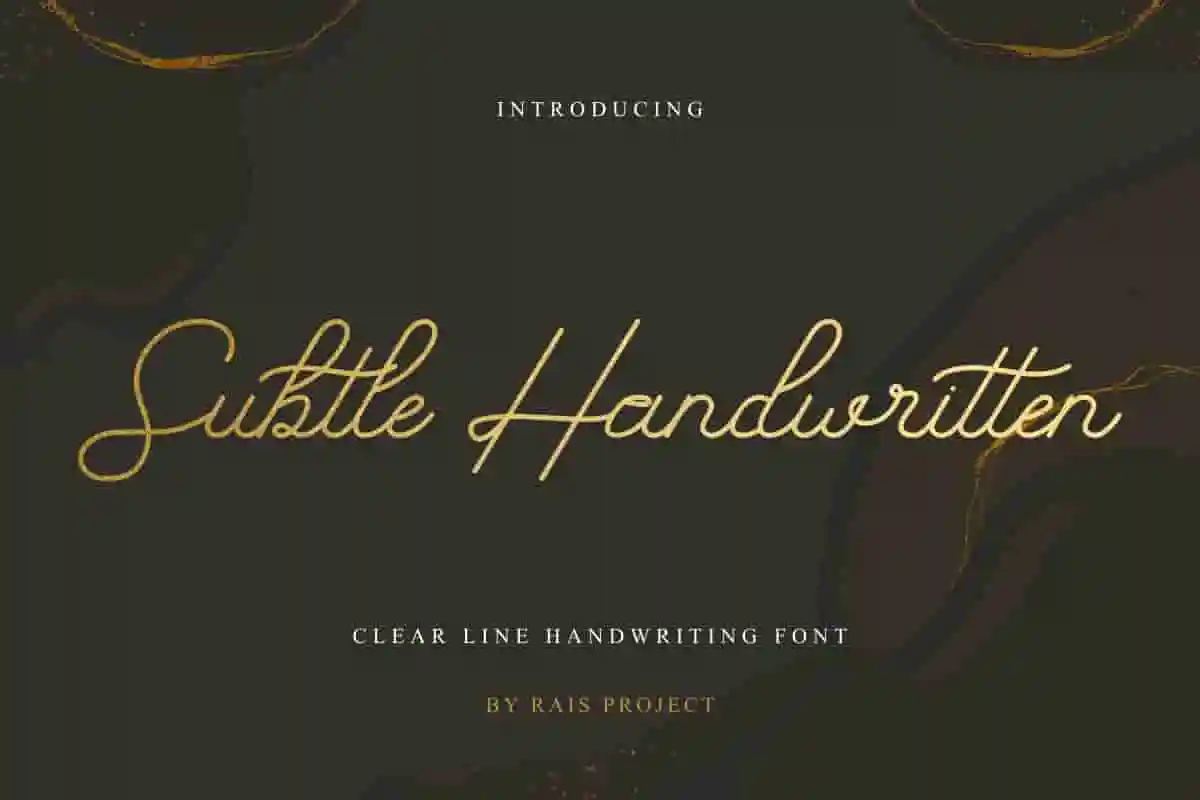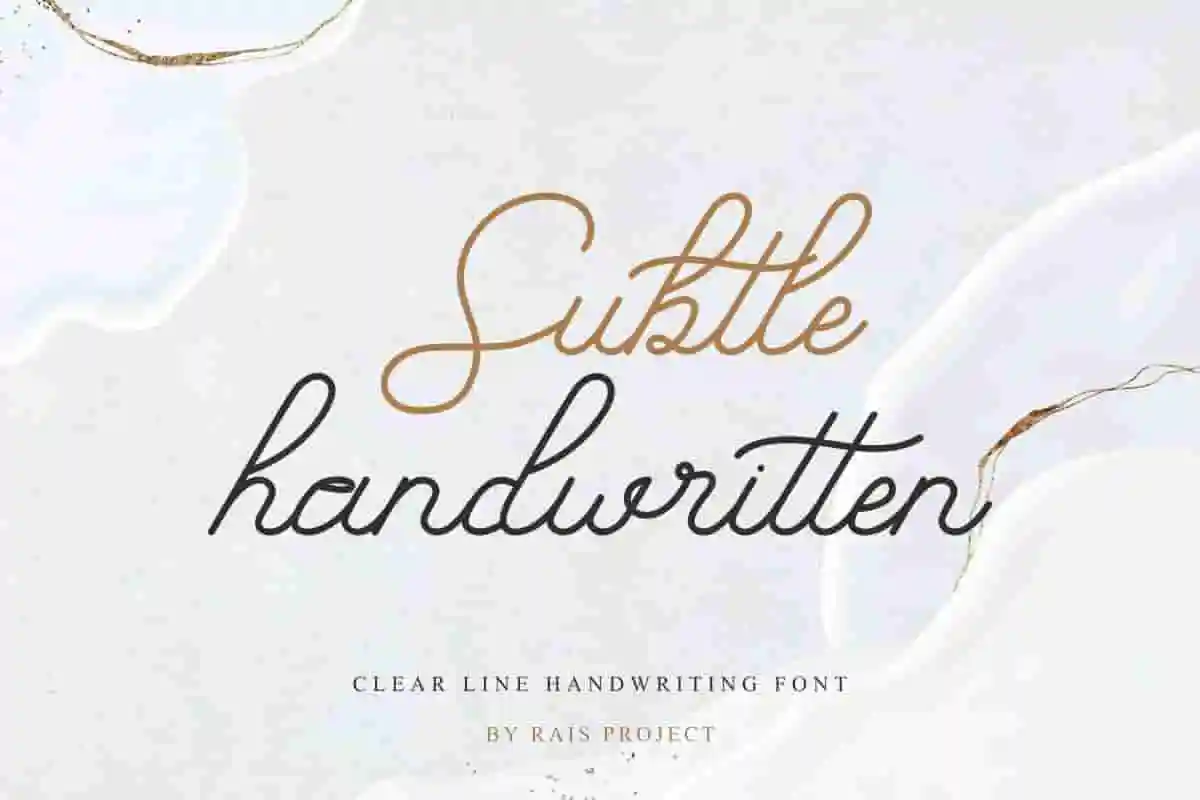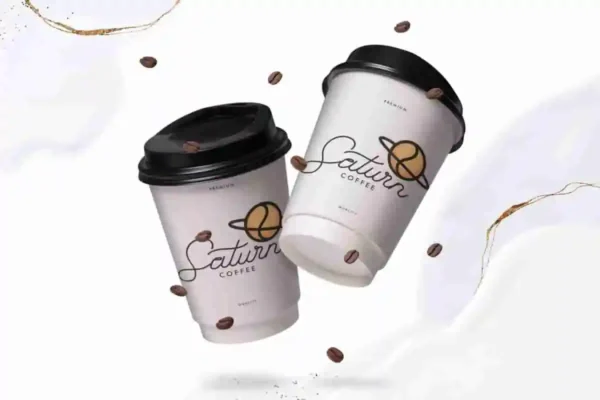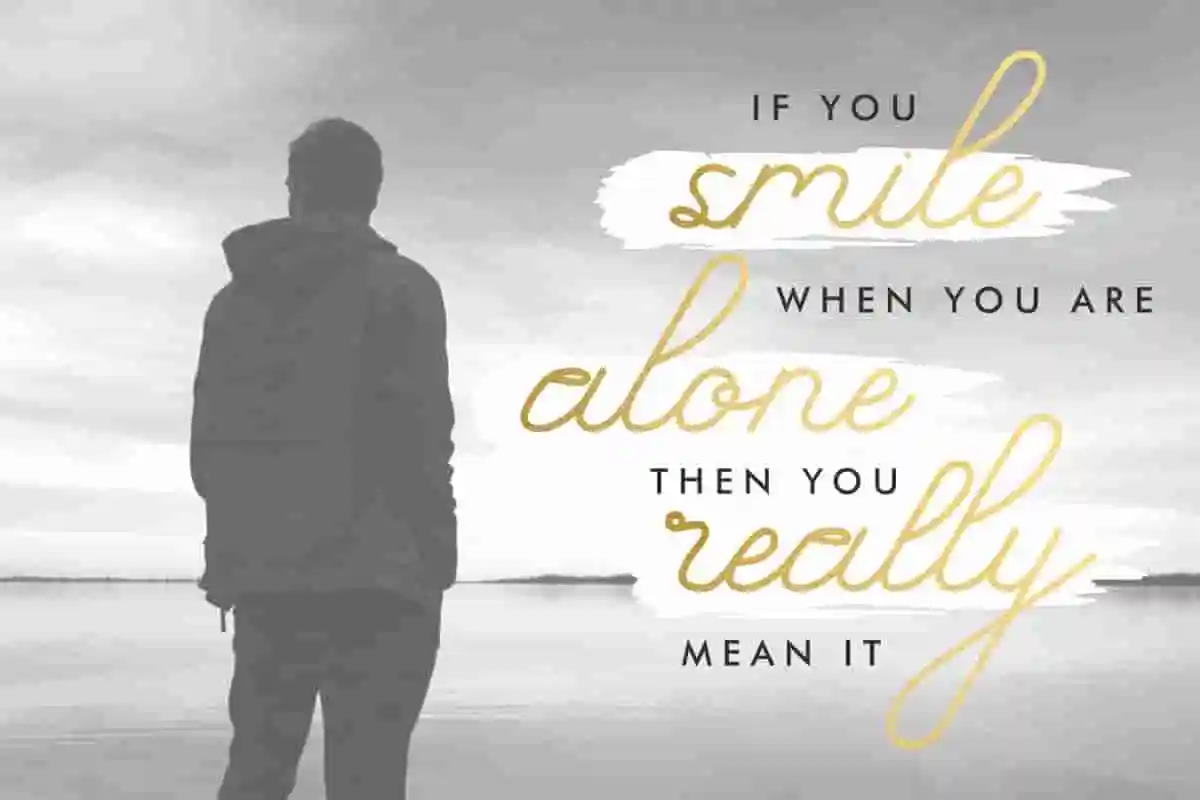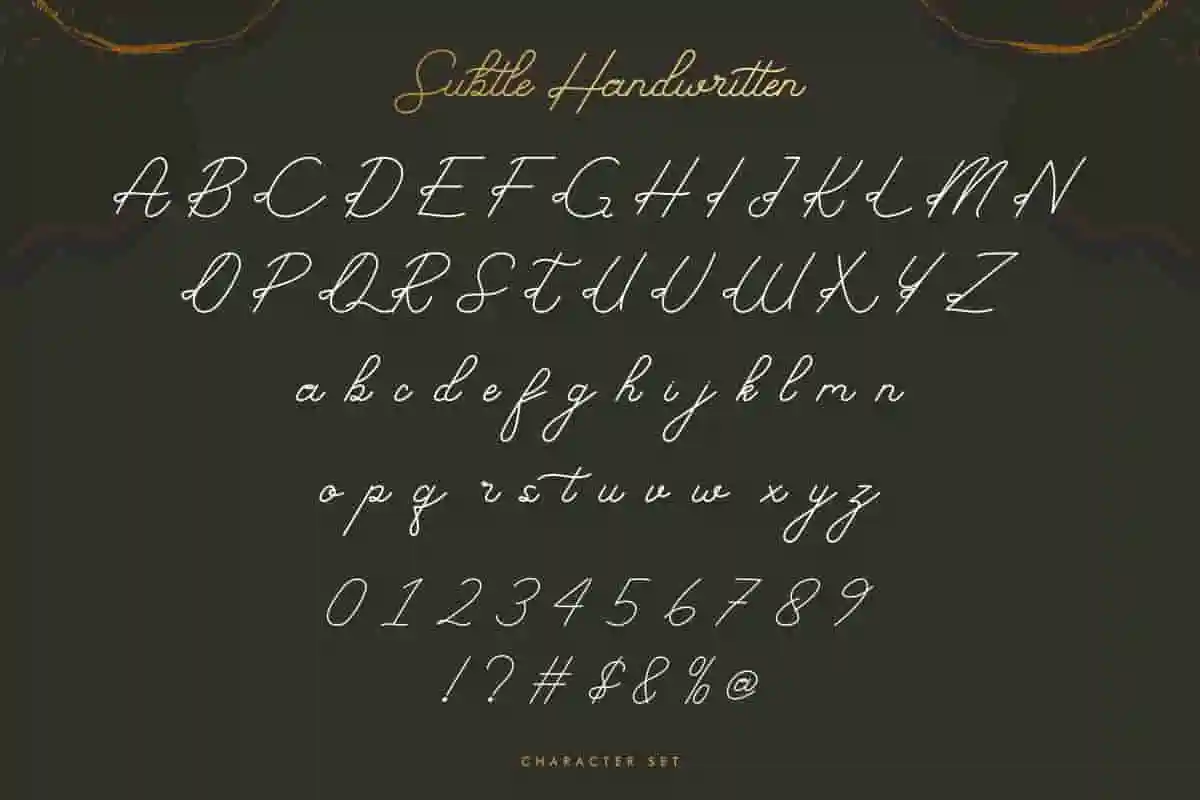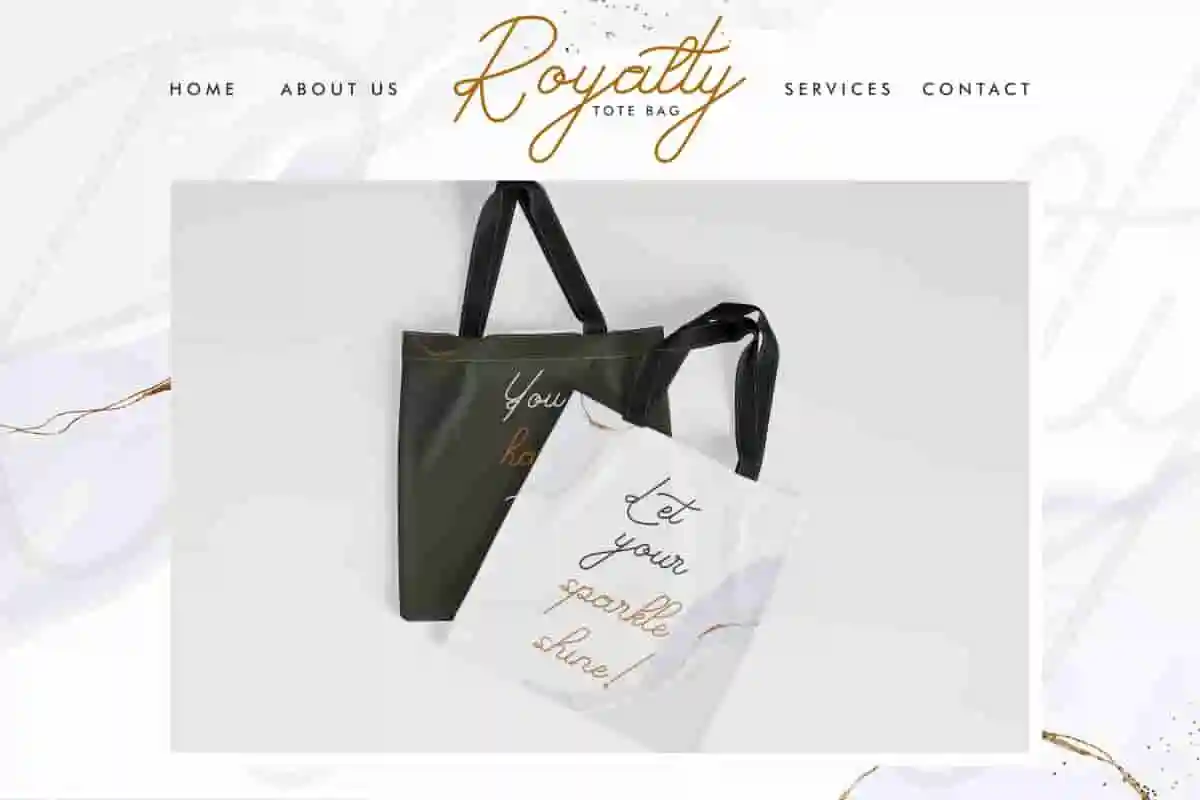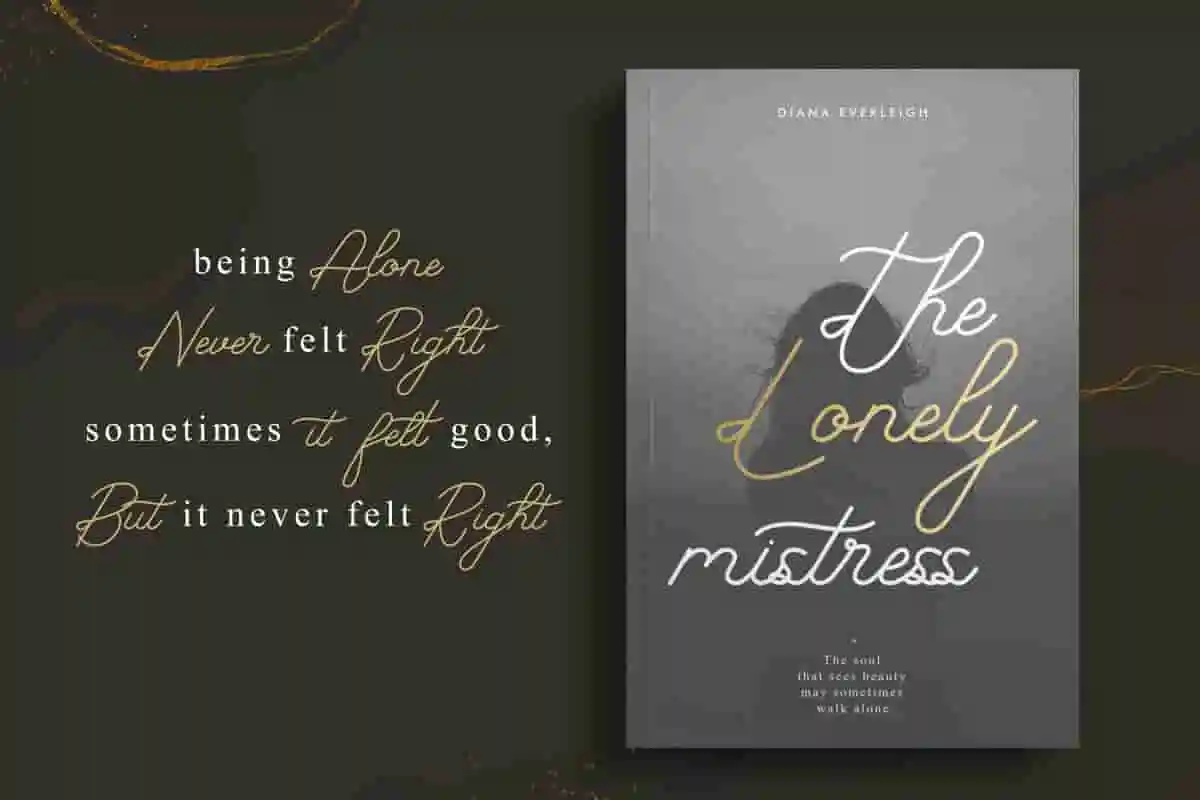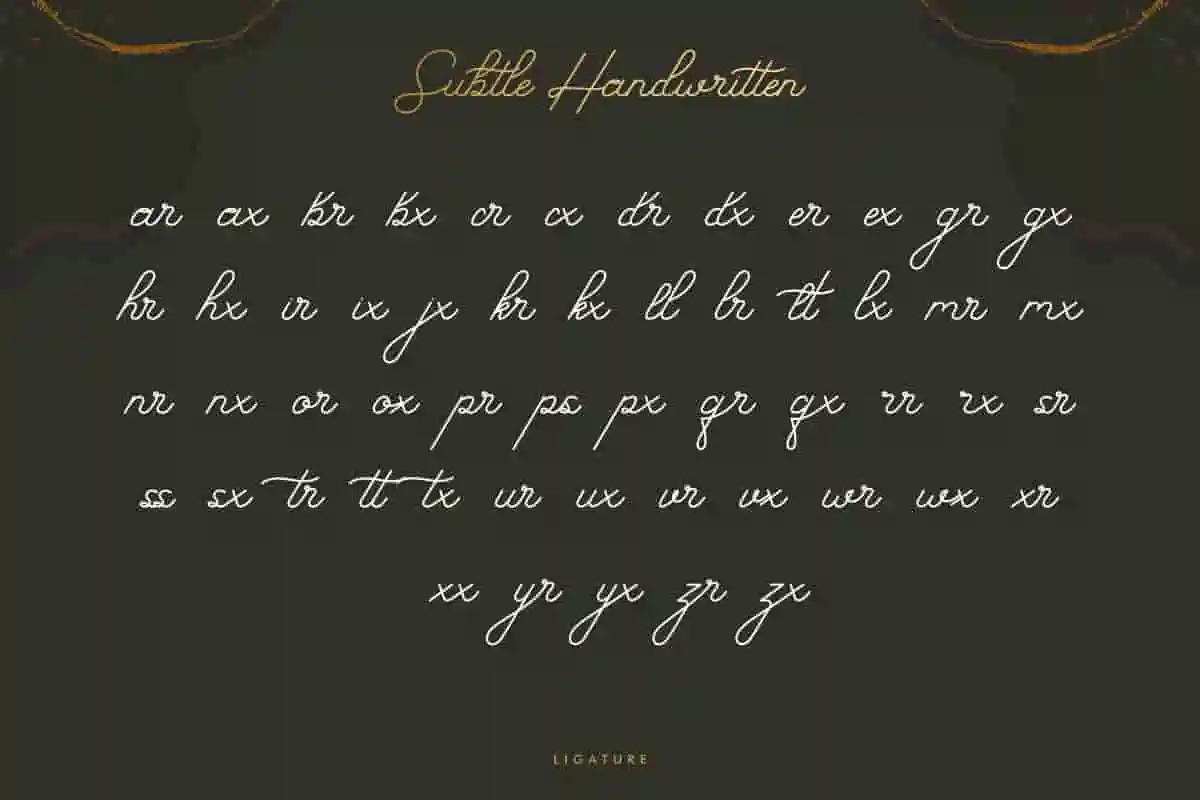
Subtle Handwritten Monoline Font
Subtle Handwritten Font is a beautiful monoline handwriting font by RaisProject. It will be great for Invitation, branding, watermark, promotion, events, advertising etc
Subtle Handwritten is a beautiful handwriting script font with sophisticated style. You can see the demo font below. You can also input any word you want so you can see what it will look like :
Subtle Handwritten Font handcrafted With simple characters, it will be stunning for any your special projects including : games, promotion, events, branding, advertising, magazine, apps, signage, invitation, stationery, social media posts, product packaging, product designs, label, comic, watermark or and any projects that need calligraphy handwriting style.All letters has hand-lettered style to make it unique yet cool looking design. You will get: